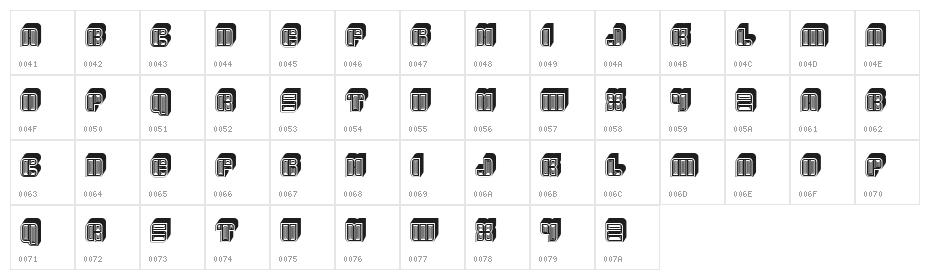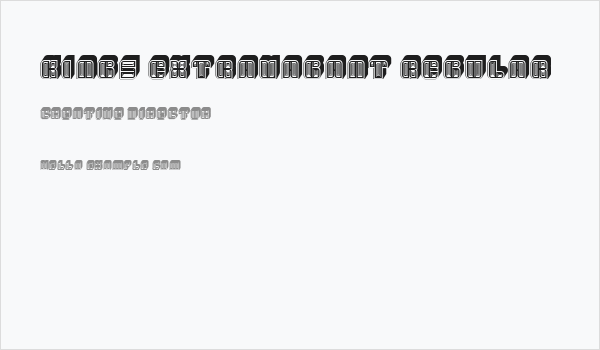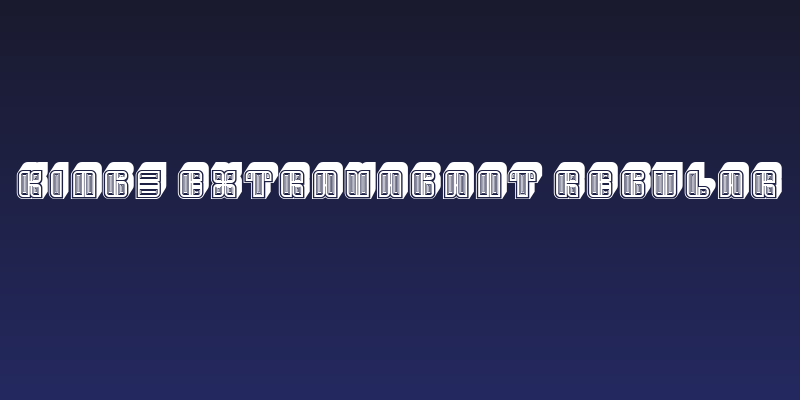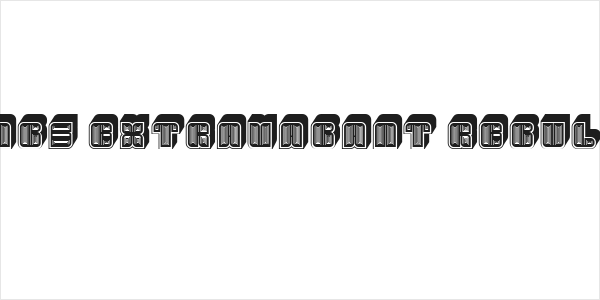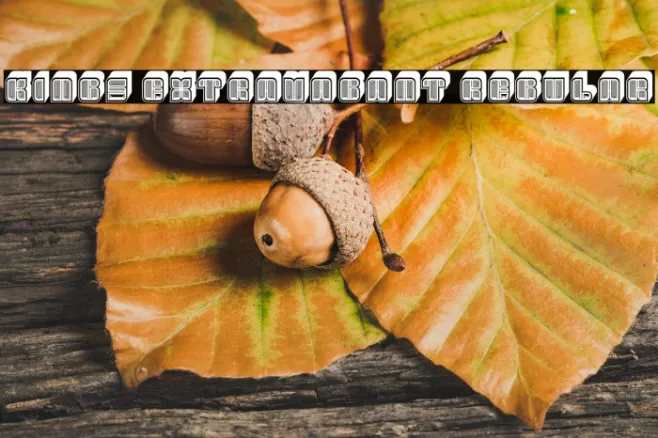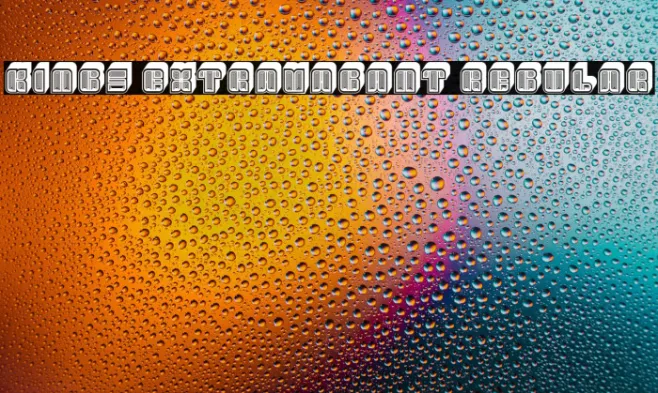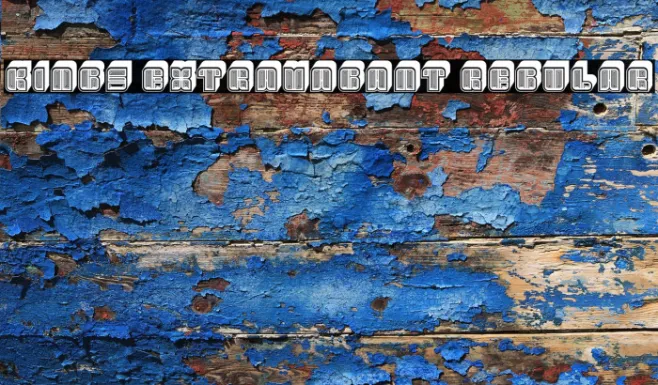
Kings Extravagant Regular Font
Kings Extravagant Regular Description
This font exhibits a bold, decorative style with a unique, layered design. Each character is outlined with a thick border, creating a striking visual impact. The interior of the letters features intricate line work, adding depth and complexity to the overall appearance. The font maintains a consistent height across all characters, ensuring uniformity. Its geometric shapes and bold presence make it ideal for attention-grabbing designs. The font's distinct style is suitable for projects that require a strong and memorable visual identity.
| Proposed Projects | Ideal for posters, logos, branding, and any design that requires a bold and memorable typeface. |